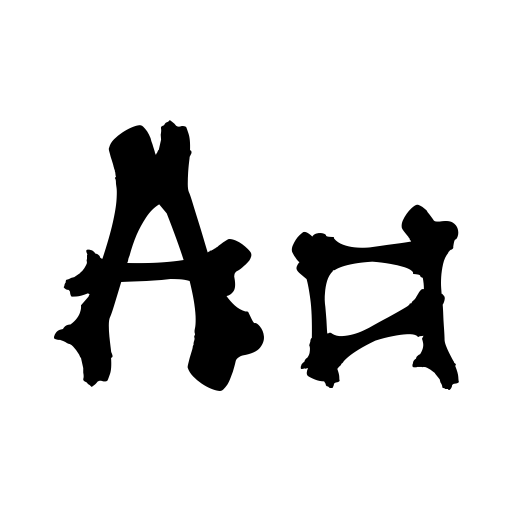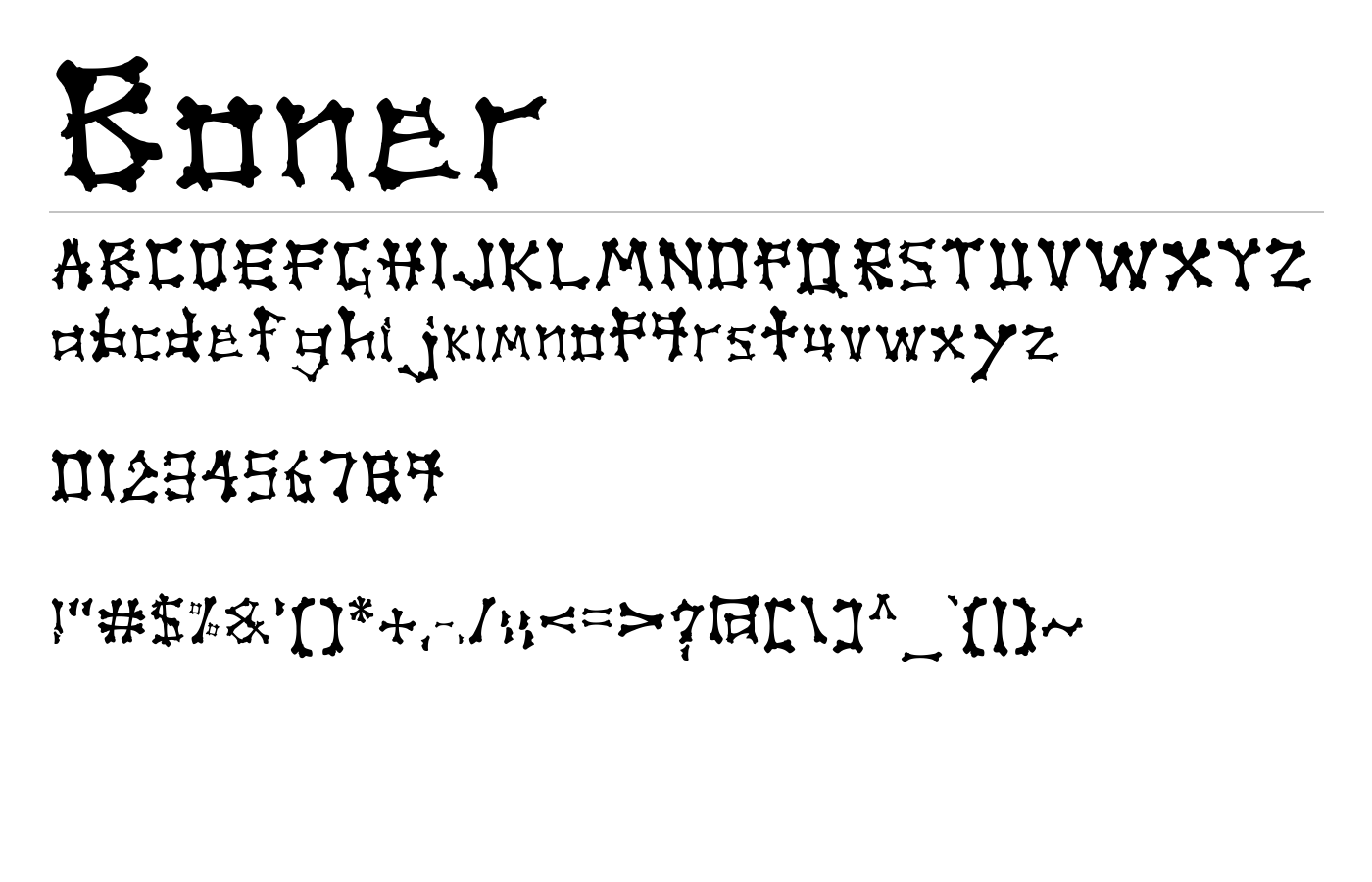
Boner Font is a playful, decorative serif typeface that mimics the shape of bones, giving it a quirky and slightly spooky character. Its irregular, chunky strokes and high contrast create a bold, eye-catching look that suits Halloween themes, posters, or fun branding projects needing a creative edge. This font works best for headlines or display uses where its unique personality can shine without sacrificing readability.
Boner Font
About Boner Font
| Designer | Mark Kay, Tye Mortimer |